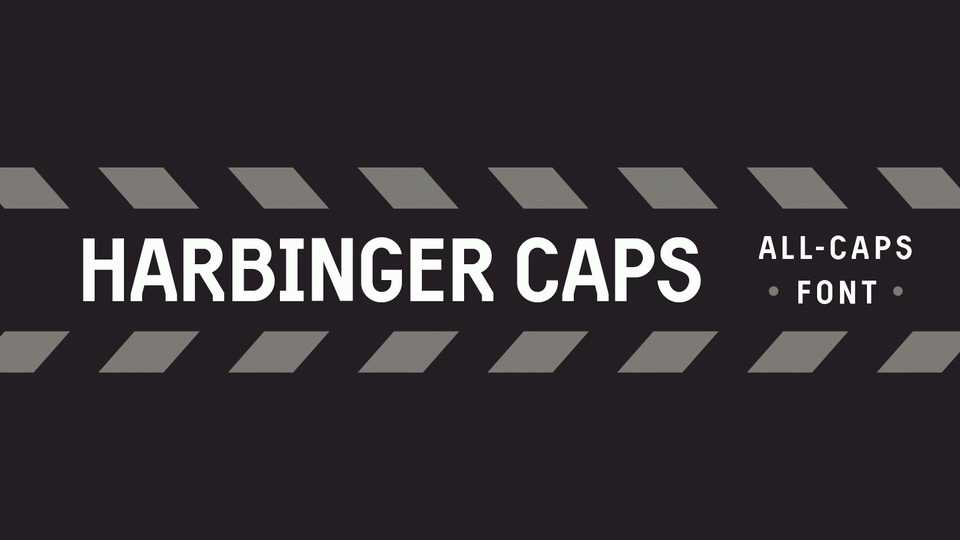
Download Harbinger Caps font, a contemporary display typeface with a bold and strong feel. Harbinger works best for headlines, posters, logos and branding projects.